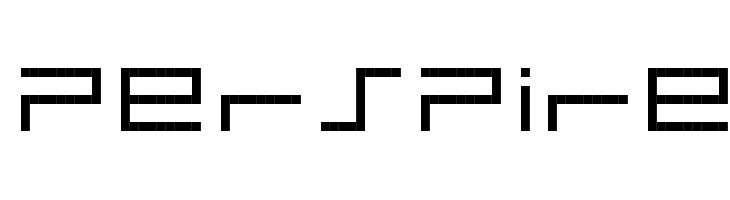
A playful, cartoon-like font with bold, irregular strokes and dynamic shapes.
A bold, playful font with a three-dimensional bevel effect and whimsical design.
A bold, condensed font with sharp, angular edges and a modern look.
A bold, cracked textured font with a rugged and distressed appearance.
An elegant, whimsical font with flowing, cursive-like strokes and playful loops.
A modern, geometric font with a digital and tech-inspired design.
A bold, artistic font with dynamic curves and sharp edges, perfect for creative projects.